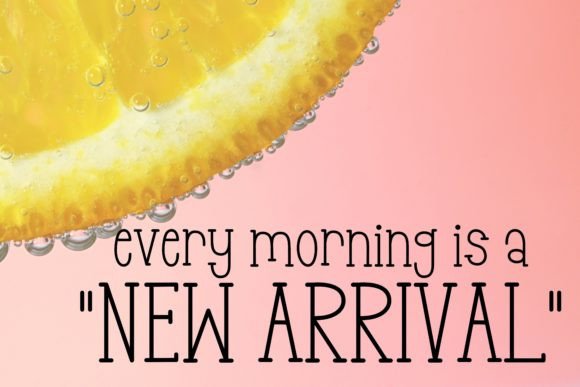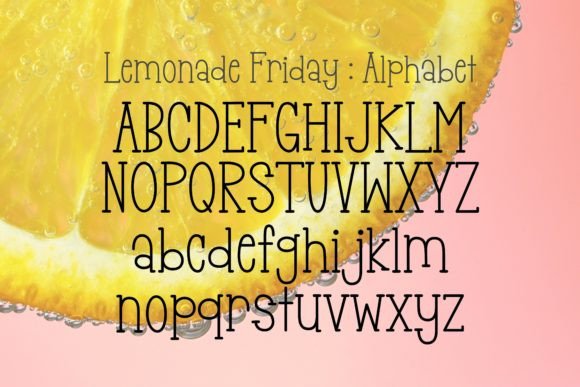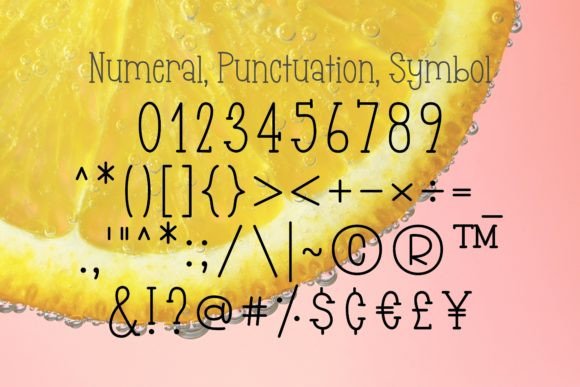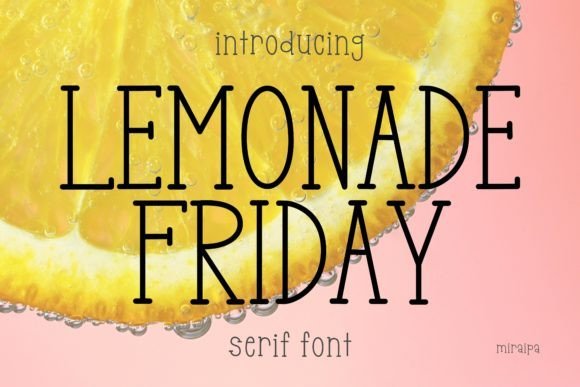
Introduction to Lemonade Friday Font
Lemonade Friday is designed in a friendly and cute serif style.
It would be awesome for your diary or planner It also looks perfect on projects such as back to school, weddings, party decorations, invitations, Fall, Halloween, Christmas, posters, blogs, clothing, child-related designs, greeting cards, social media posts, or anything that needs a friendly touch.